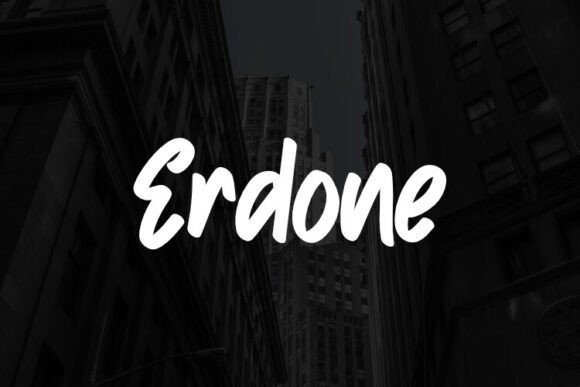
Unleash Boundless Creativity with Erdone Font: Elevate Your Designs to New Heights
In the realm of design, the right font can make all the difference. It can elevate your creations from ordinary to extraordinary, adding a touch of elegance and sophistication that captivates your audience. This is where Erdone Font comes into play – a versatile and transformative typeface designed to breathe life into your clothing and product designs. With its unique charm and seamless compatibility with various software, Erdone is the perfect companion for all your design ventures.
The Birth of Erdone: A Font Sculptured for Creativity
Erdone is not just another font; it’s a design statement. Crafted with precision and creativity, this font is tailored to meet the diverse needs of designers. Whether you’re working on a clothing line, product packaging, or any other design project, Erdone ensures that your creations stand out in a crowded marketplace. Its distinct nature is what sets it apart, offering a fresh perspective to your designs that is both captivating and memorable.
Seamless Integration: Compatible with Every Software
Adding a Touch of Elegance and Appeal
Erdone brings more than just functionality to your designs; it adds an aesthetic appeal that is hard to achieve with standard fonts. Its elegant curves and sophisticated look make it perfect for designs that require a level of refinement. From luxury brands to creative entrepreneurs, Erdone helps you communicate your message with style and substance. Each letter is sculptured to tell a captivating story, making your designs not just visually appealing but also engaging and memorable.
Exploring Endless Possibilities with Erdone
The versatility of Erdone Font is one of its most compelling features. It opens up a world of possibilities for designers, allowing them to experiment with different styles and themes. Whether you’re looking to create a bold statement or a subtle hint of elegance, Erdone adapts to your creative vision. This adaptability makes it an invaluable asset for designers who wish to push boundaries and explore new creative territories.
Immersing Your Audience in Style and Substance
In a world where design is a critical component of communication, Erdone Font offers a unique opportunity to connect with your audience on a deeper level. By integrating style and substance, Erdone helps you create designs that are not just visually stunning but also meaningful. This connection is crucial in today’s competitive market, where brands strive to leave a lasting impression on their customers. With Erdone, you’re not just designing; you’re crafting experiences that resonate with your audience.
The Distinct Nature of Erdone: What Sets It Apart
So, what makes Erdone stand out in a sea of fonts? Its distinct nature is rooted in its design philosophy. Erdone is not just a font; it’s a design solution that understands the needs of modern designers. It’s crafted to be versatile, elegant, and highly legible, making it perfect for a wide range of applications. From digital screens to print materials, Erdone performs exceptionally well, ensuring that your designs look great in any medium.
Transformative Power of Erdone in Design
The transformative power of Erdone lies in its ability to elevate your designs. With Erdone, you’re not just adding text to your creations; you’re adding a layer of sophistication and elegance. This font has the power to transform your designs from ordinary to extraordinary, making them more engaging and captivating. Whether you’re a professional designer or an entrepreneur looking to create your own brand identity, Erdone is a valuable tool in your creative arsenal.
Conclusion: Unleash Your Creativity with Erdone
In conclusion, Erdone Font is more than just a typeface; it’s a creative partner that helps you bring your design visions to life. With its versatility, elegance, and seamless compatibility with various software, Erdone is the perfect choice for designers looking to add a touch of sophistication to their creations. Whether you’re working on a clothing line, product design, or any other project, Erdone ensures that your designs stand out and leave a lasting impression on your audience. So, why wait? Unleash boundless creativity with Erdone and take your designs to new heights.